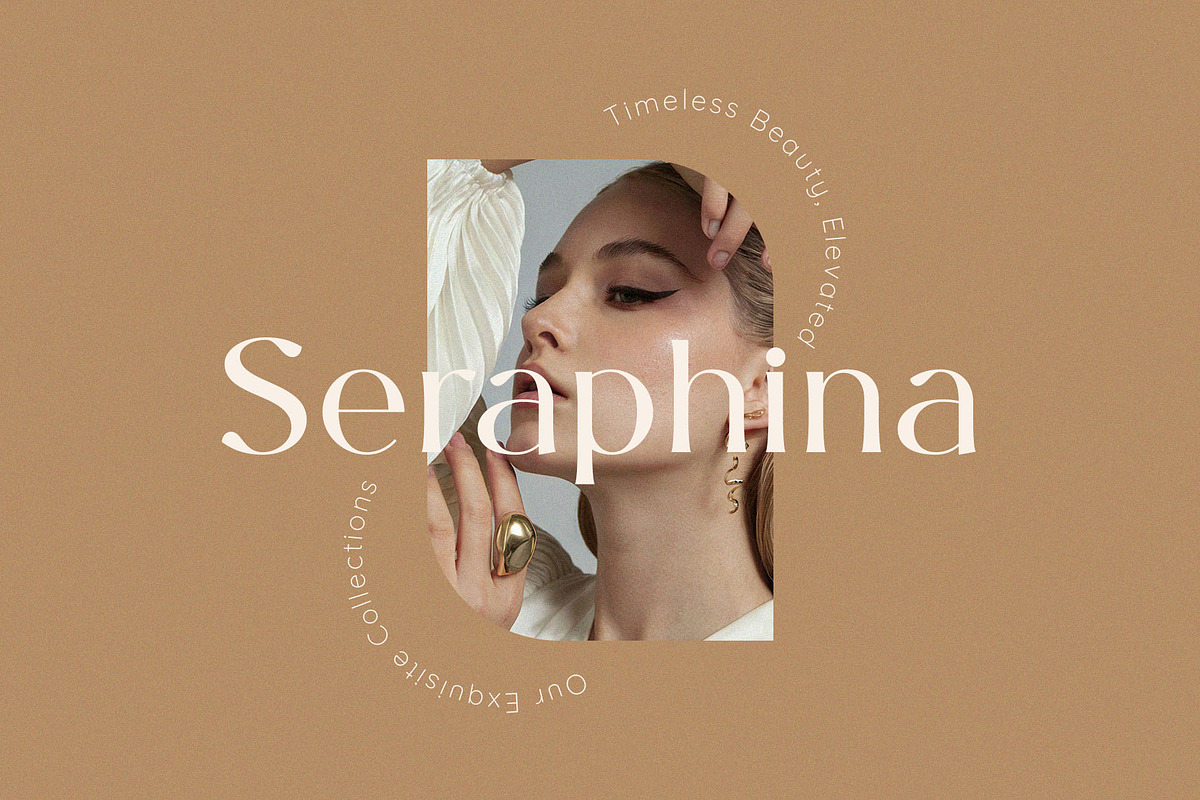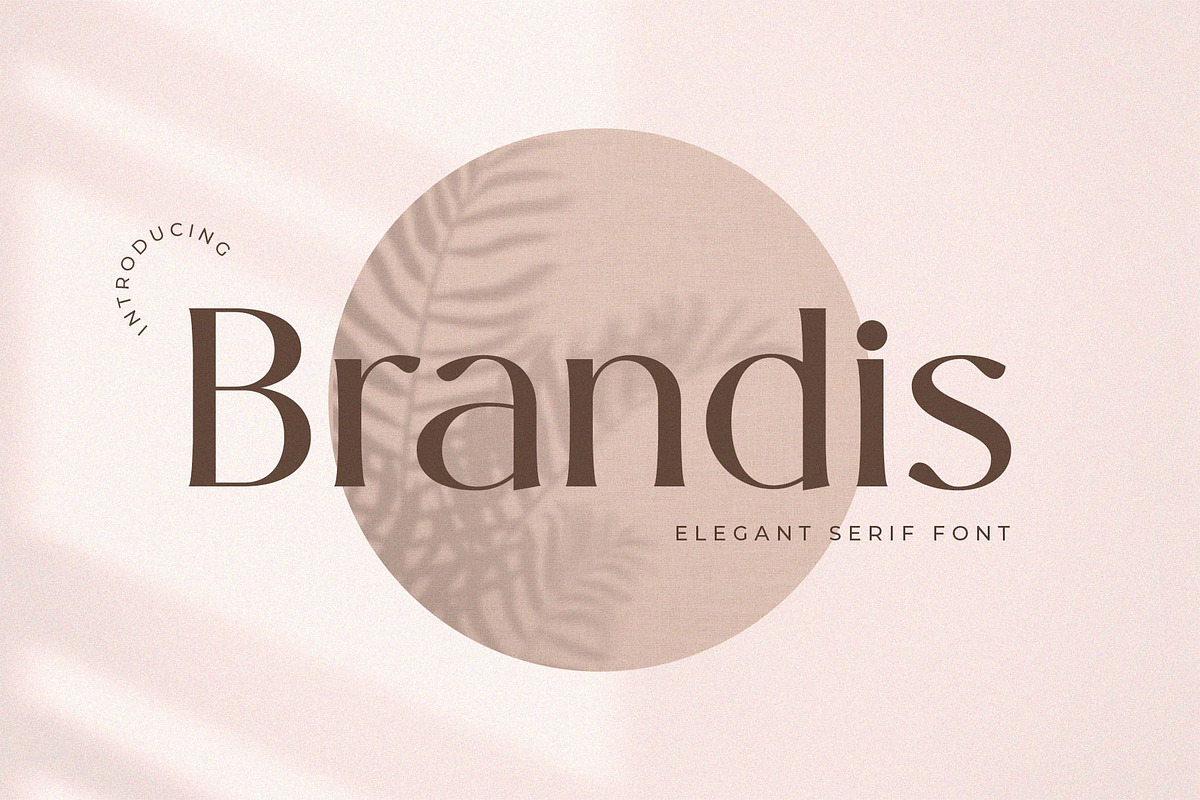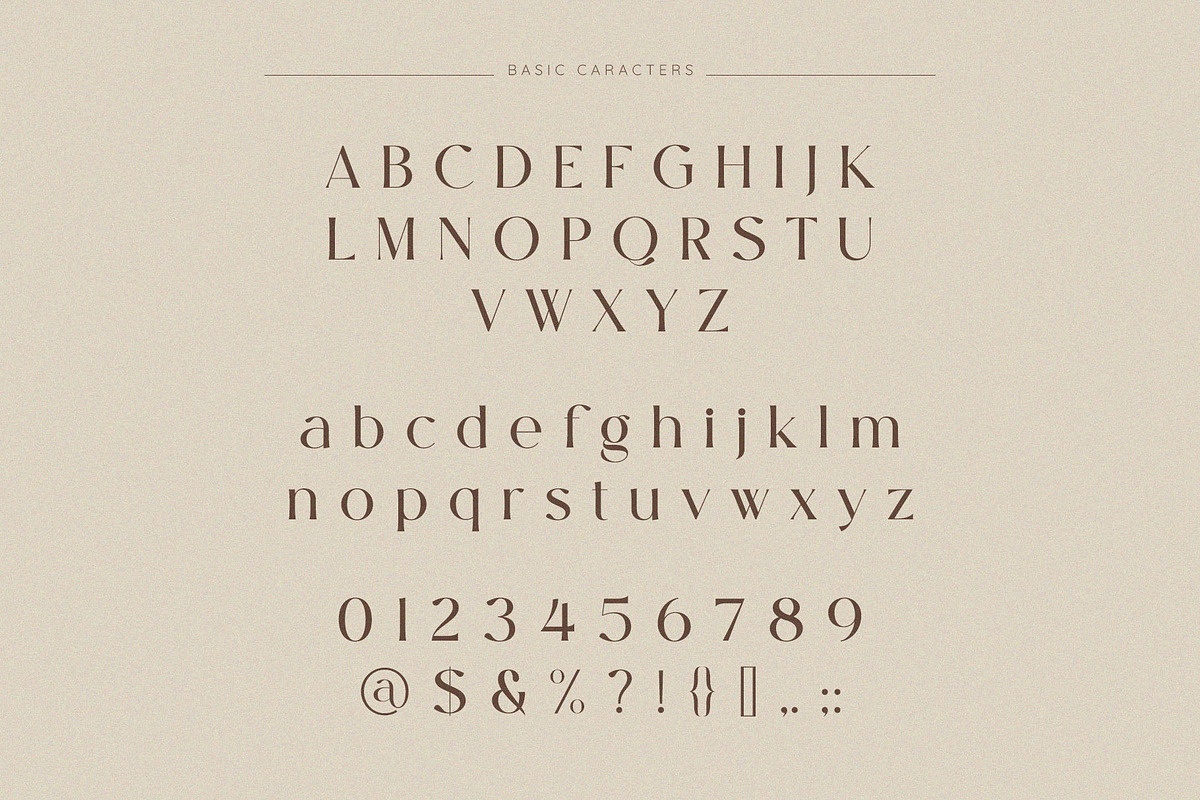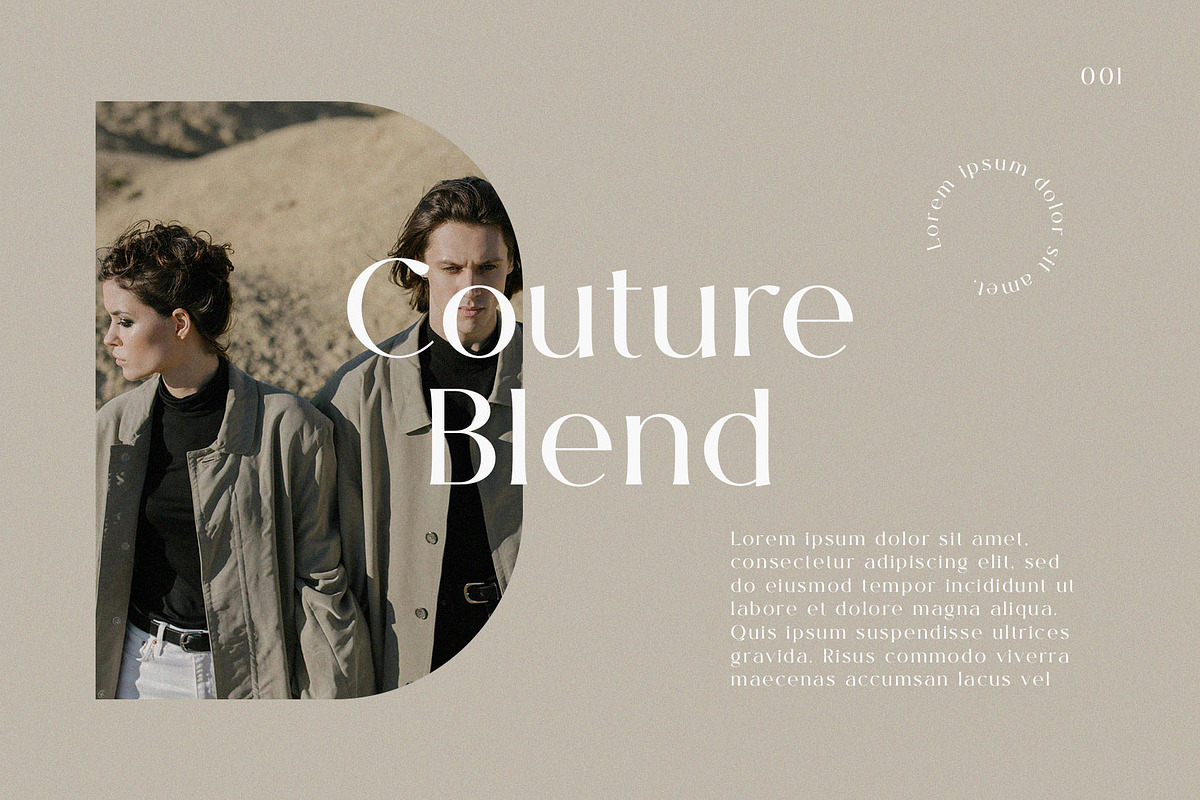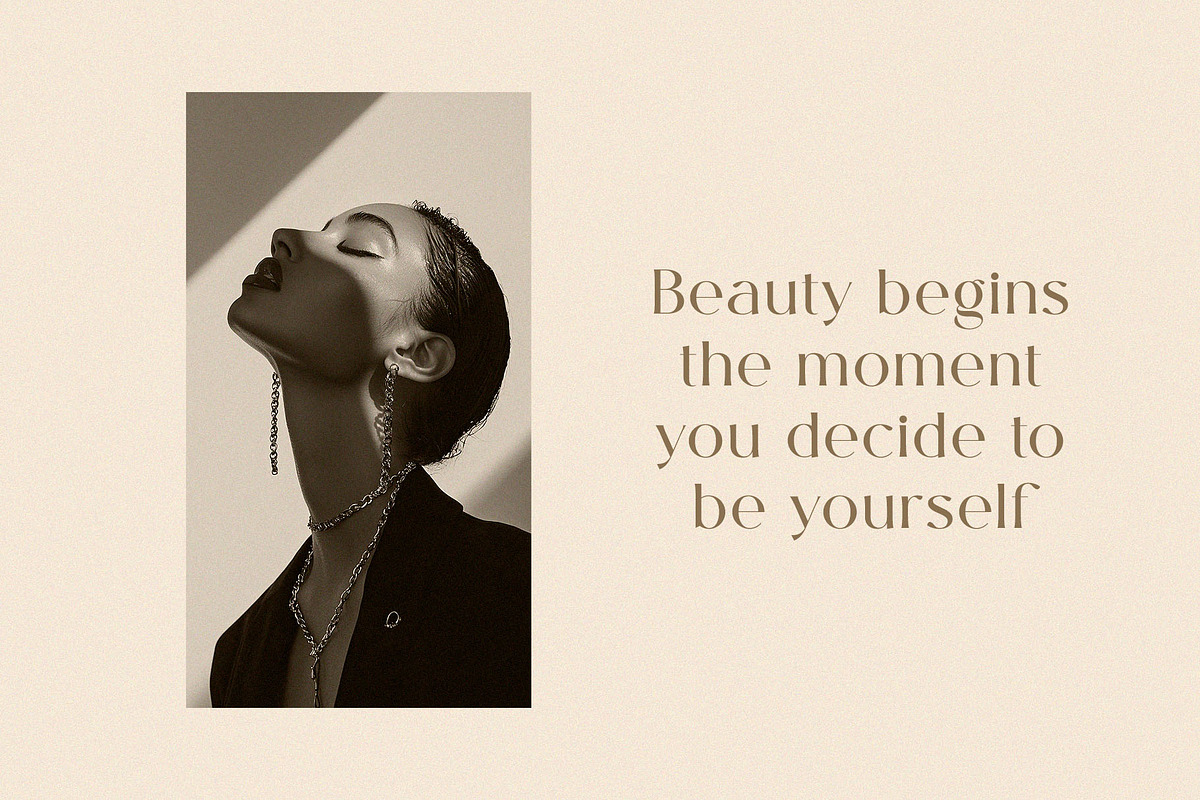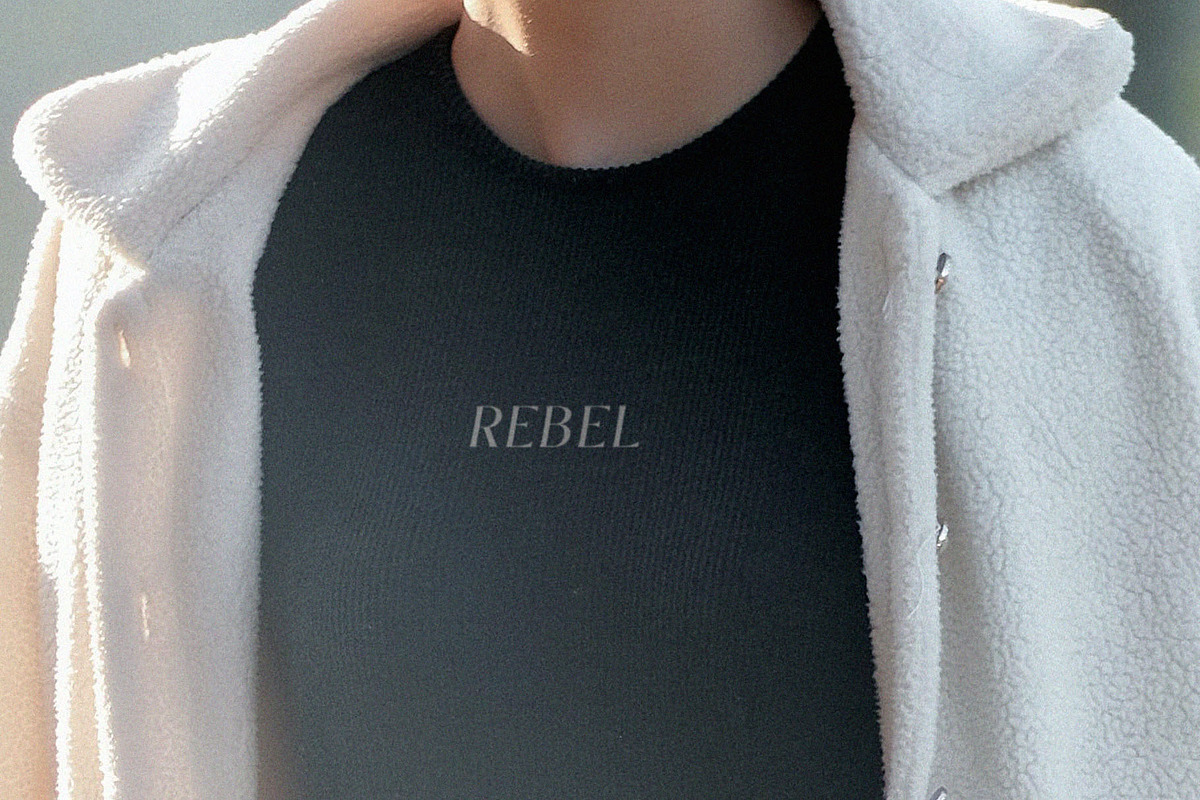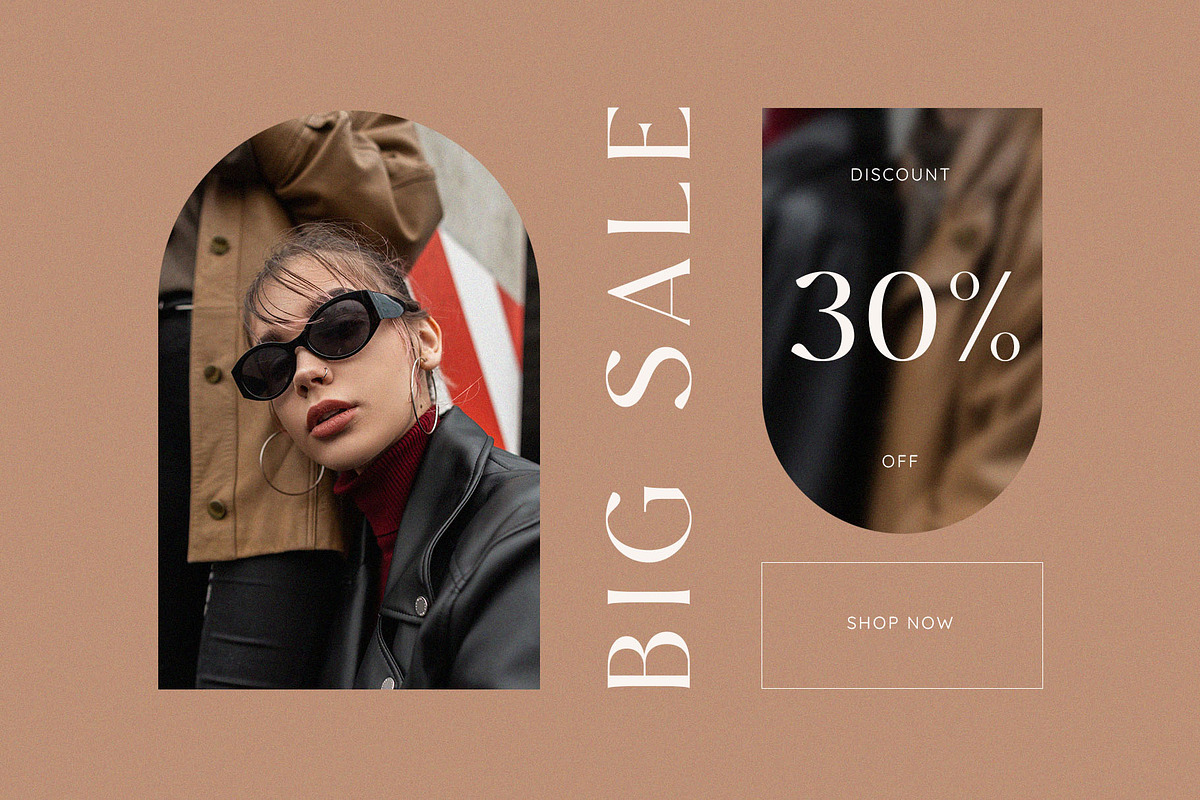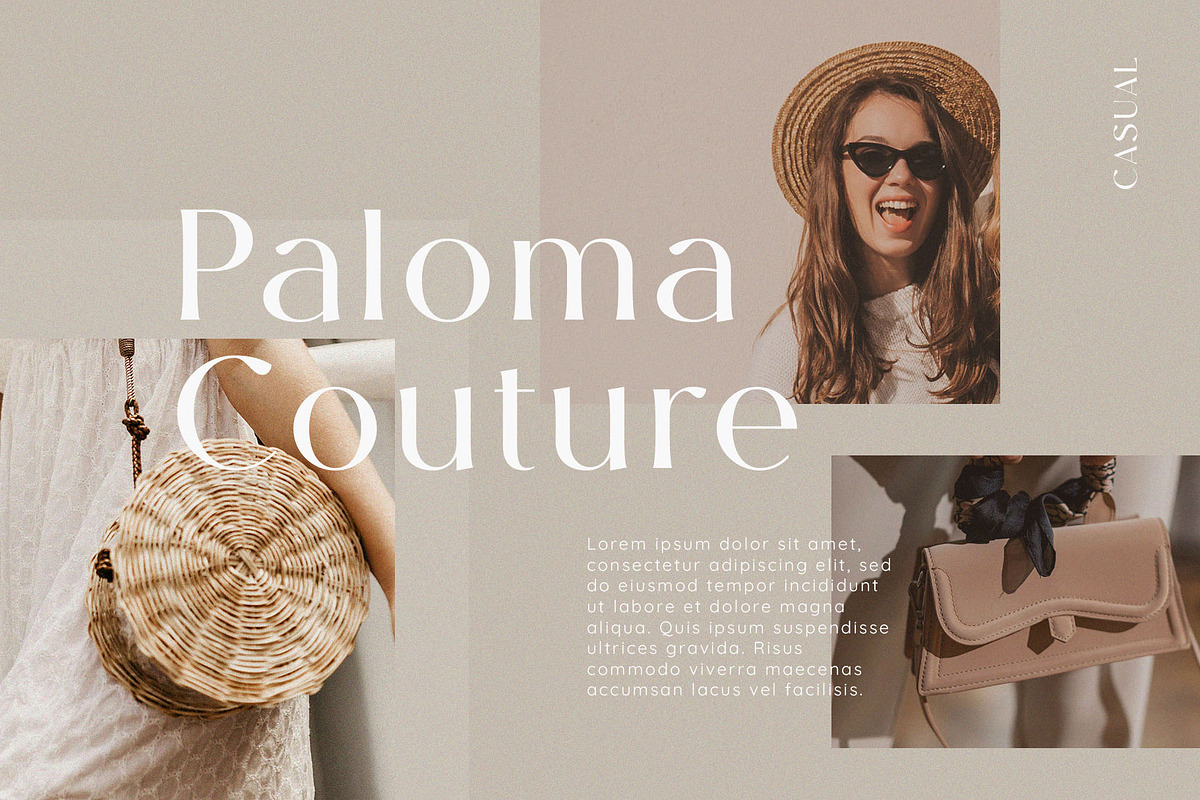
Brandis – Elegant & Modern Serif
Brandis – Elegant & Modern Serif Font for Timeless Designs
Introducing Brandis, a refined and elegant serif font designed to bring a touch of sophistication to any project. With its sleek curves and balanced contrast, Brandis is perfect for branding, editorial layouts, logo design, packaging, wedding stationery, and high-end marketing materials.
Crafted to convey both modern luxury and classic charm, Brandis features sharp serifs, smooth transitions, and a distinctive personality that sets it apart from traditional serif fonts. Whether used in headlines or body text, this typeface delivers clarity, beauty, and professionalism.
- Elegant and timeless serif style
- Perfect for luxury branding and editorial use
- Ideal for logos, packaging, and invitations
- Smooth readability and stylish letterforms
- Versatile across both print and digital platforms
If you're looking for a modern serif font that speaks sophistication and style, Brandis is the perfect choice for your next design.